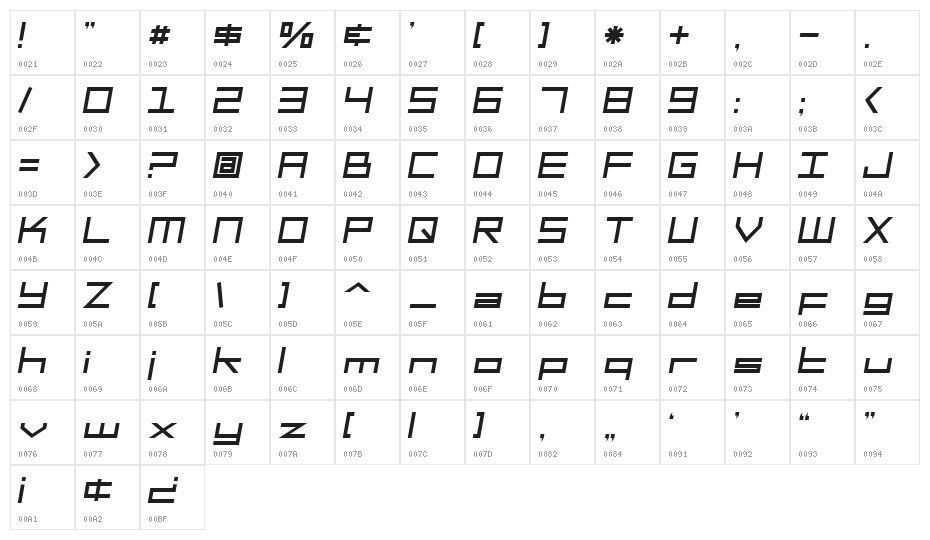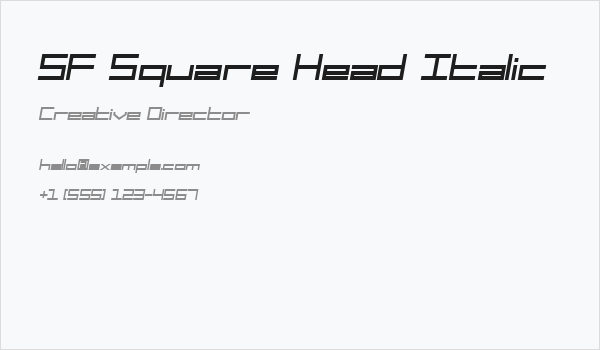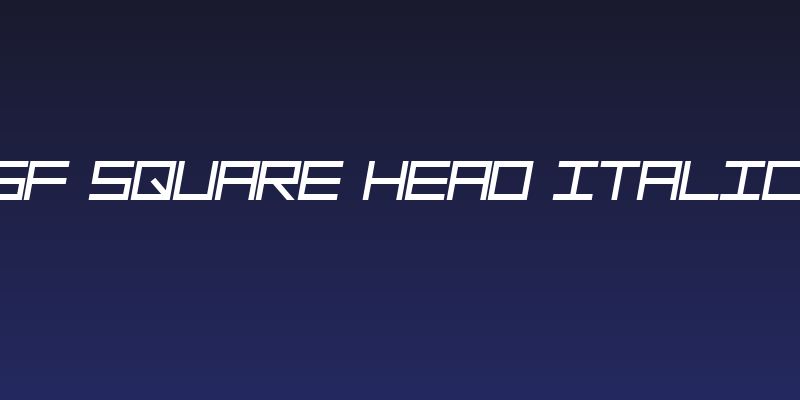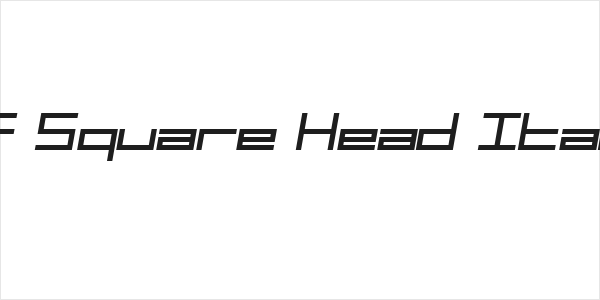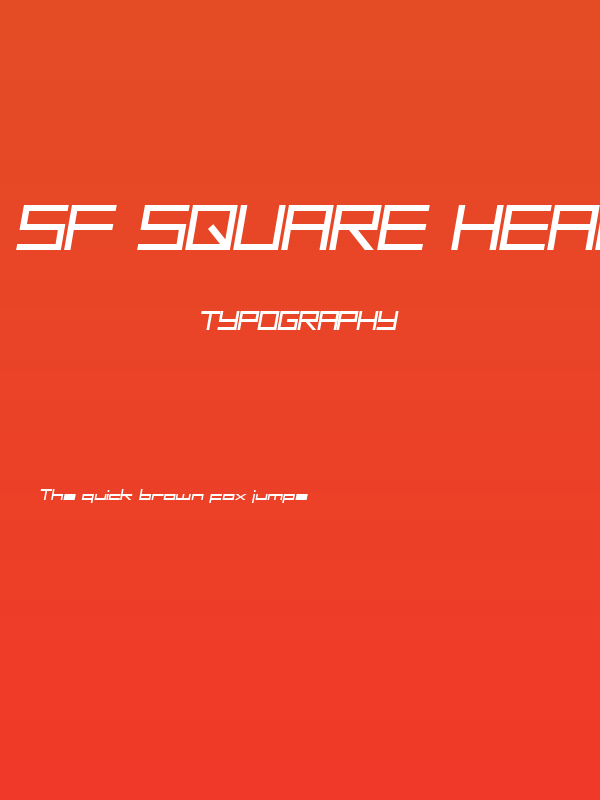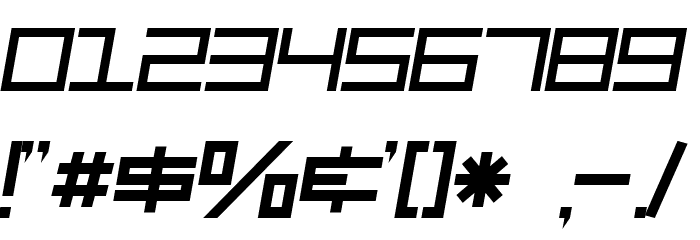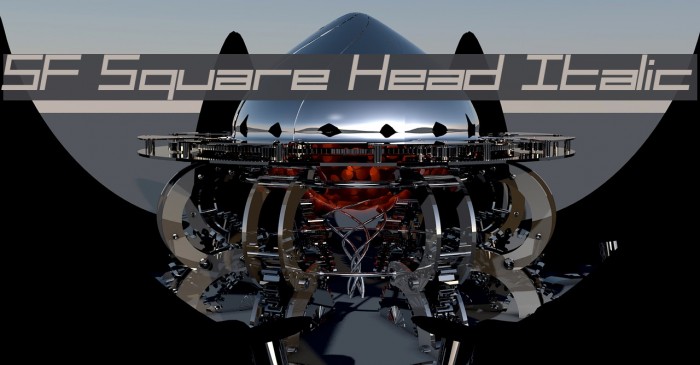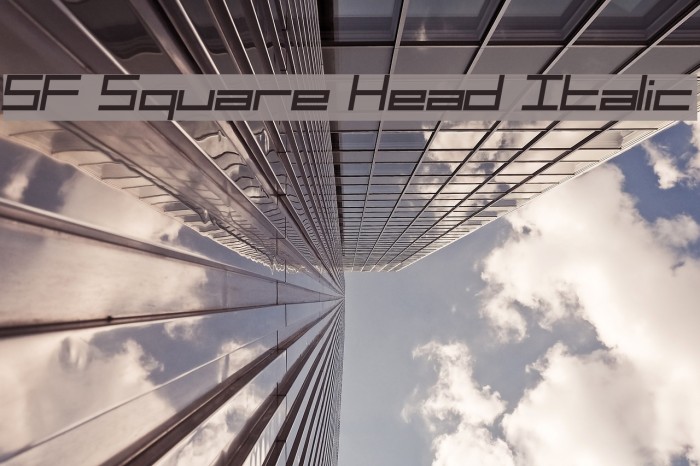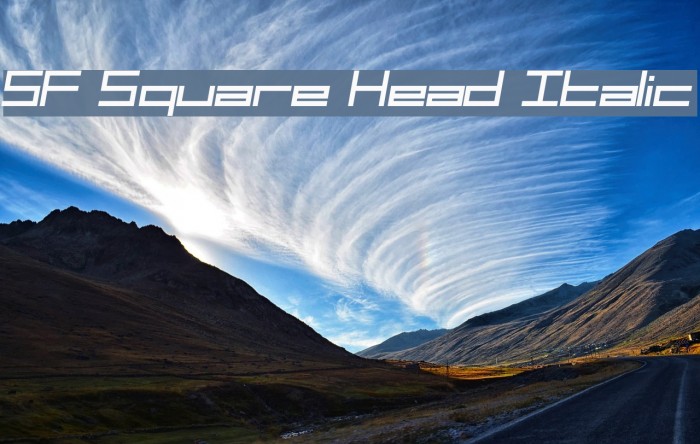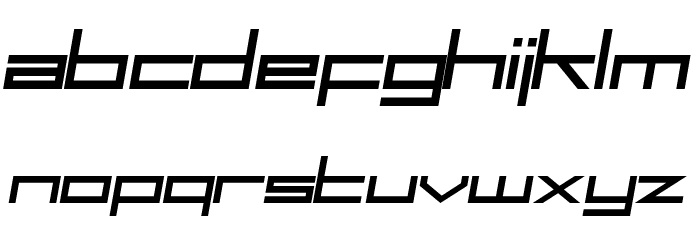
SF Square Head Italic Font
SF Square Head Italic Description
This font features a futuristic and angular design, characterized by its sharp edges and geometric shapes. The italic style adds a dynamic and forward-leaning appearance, enhancing its modern aesthetic. The uppercase and lowercase letters maintain a consistent angular theme, with clean lines and a uniform stroke width. Numbers and special characters are designed to match the overall style, ensuring a cohesive look across all glyphs. The font's unique design makes it stand out, suitable for projects that require a modern and edgy feel.
| Proposed Projects | Ideal for technology branding, video game titles, sci-fi movie posters, and modern digital interfaces. |